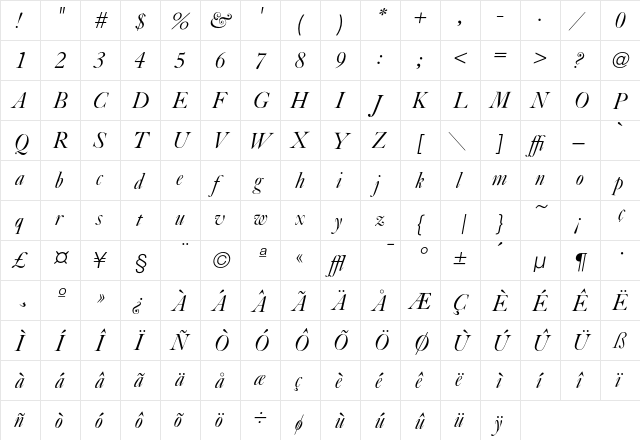
CaslonC437 ItalicH
Design Context for CaslonC437 Typeface
CaslonC437 offers clean, dependable letterforms without strong stylistic allegiance, making it a practical choice for designers who need flexibility. Its italic angle brings a sense of urgency and motion to the letterforms.
Pro Tip: Use CaslonC437 for emphasis, pull quotes, and subheadings where its slanted energy can add rhythm to the layout.